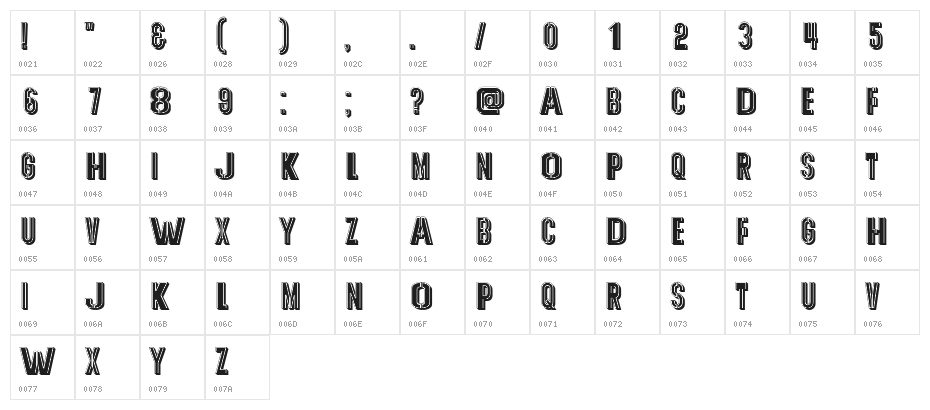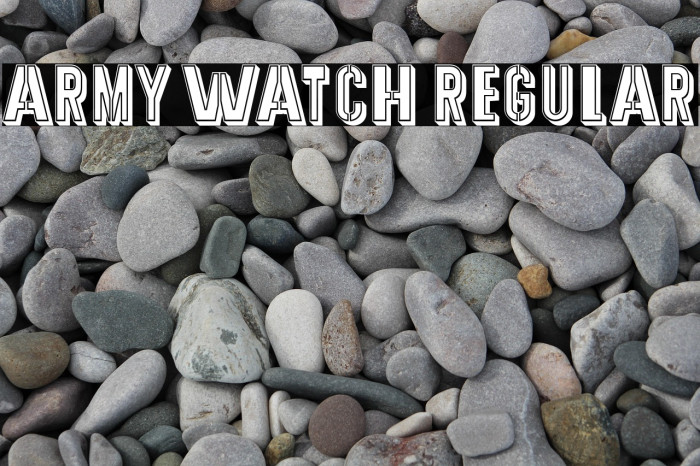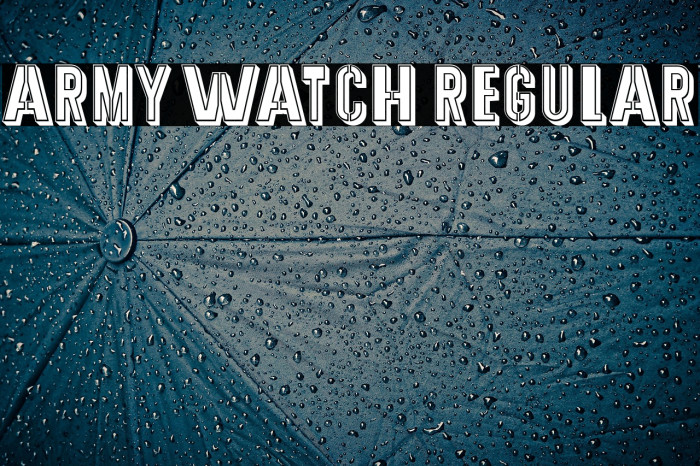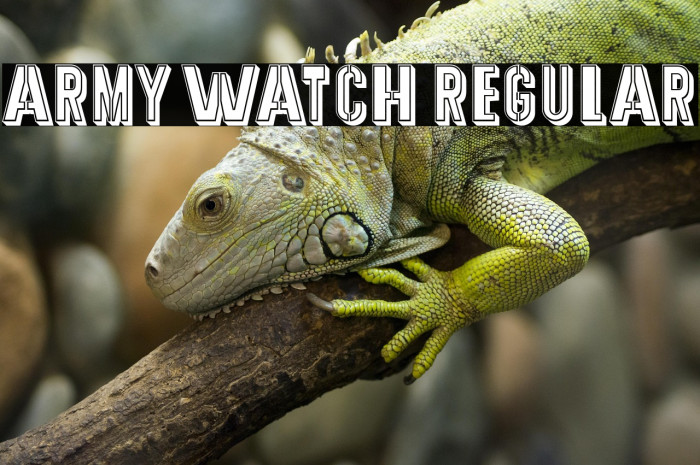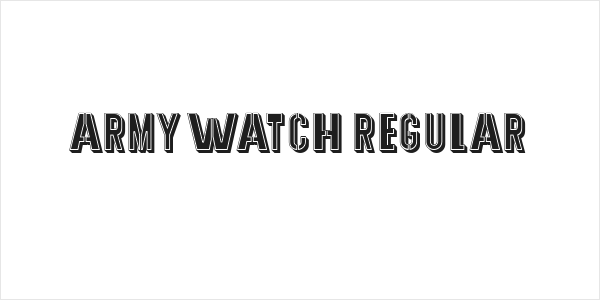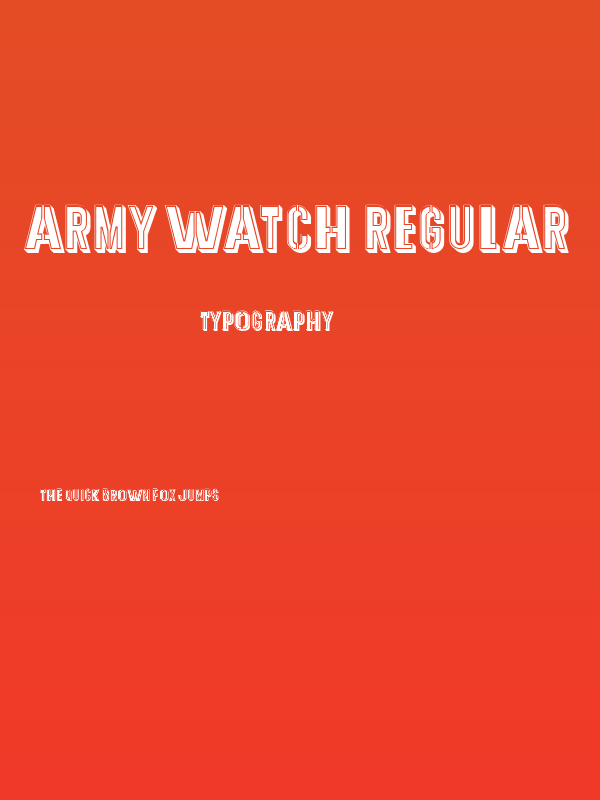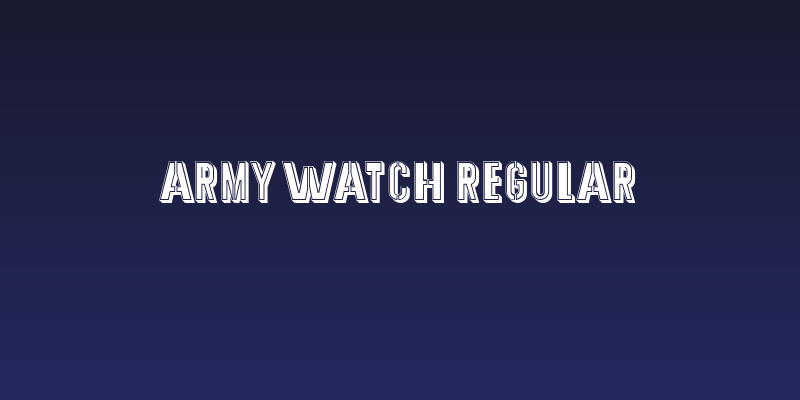
Army Watch Regular Font
Army Watch Regular Description
This font features a bold and impactful design with a strong, military-inspired aesthetic. The characters are outlined with a thick, black border that adds depth and dimension, creating a striking visual effect. The letters are all uppercase, with a uniform height and width, giving the font a structured and disciplined appearance. The numbers and special characters follow the same style, ensuring consistency across all elements. The font's design is reminiscent of stencil lettering, often associated with army and industrial themes, making it ideal for projects that require a bold and authoritative look.
| Proposed Projects | Ideal for military-themed designs, posters, logos, and branding that require a strong and authoritative presence. |